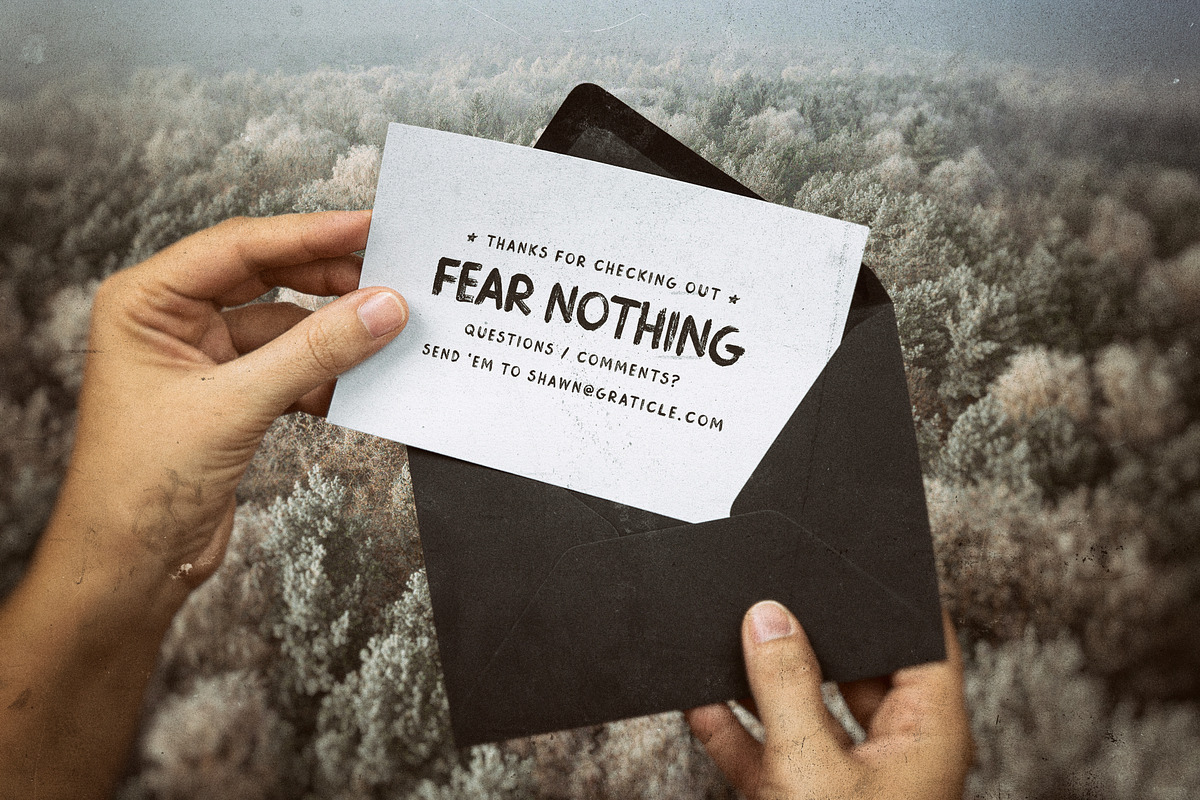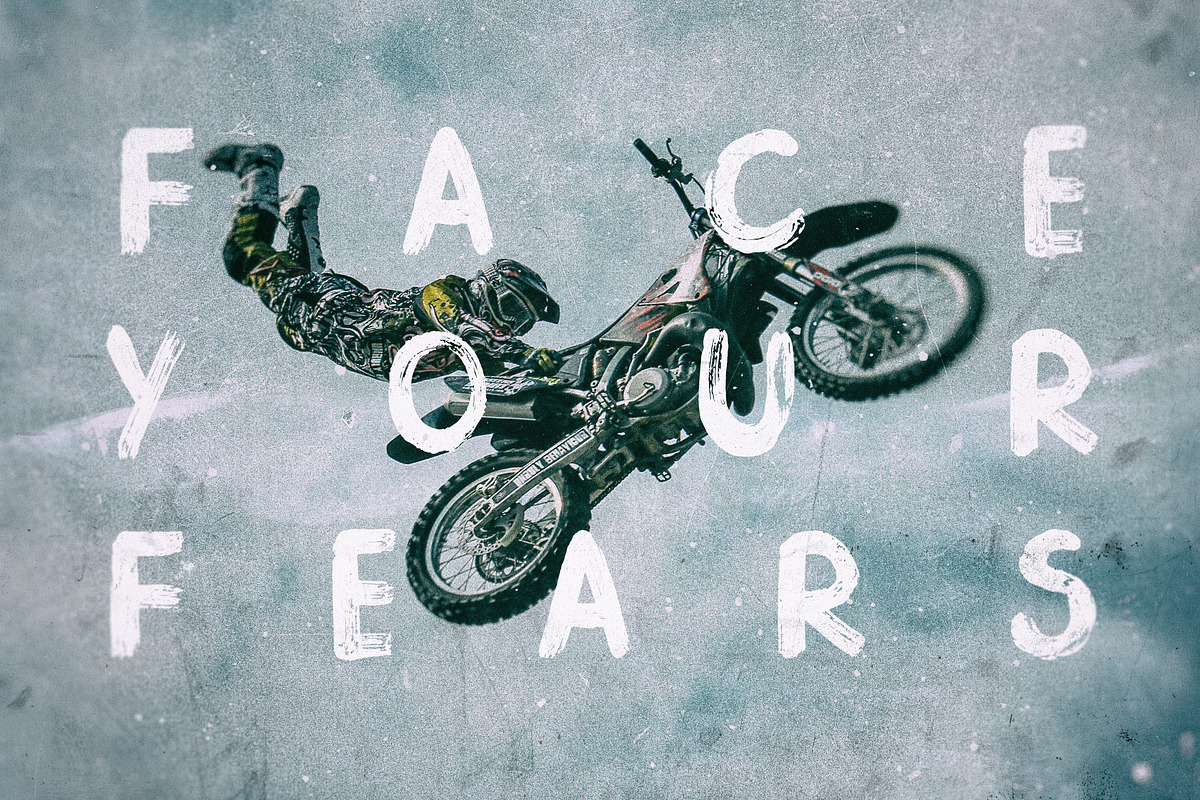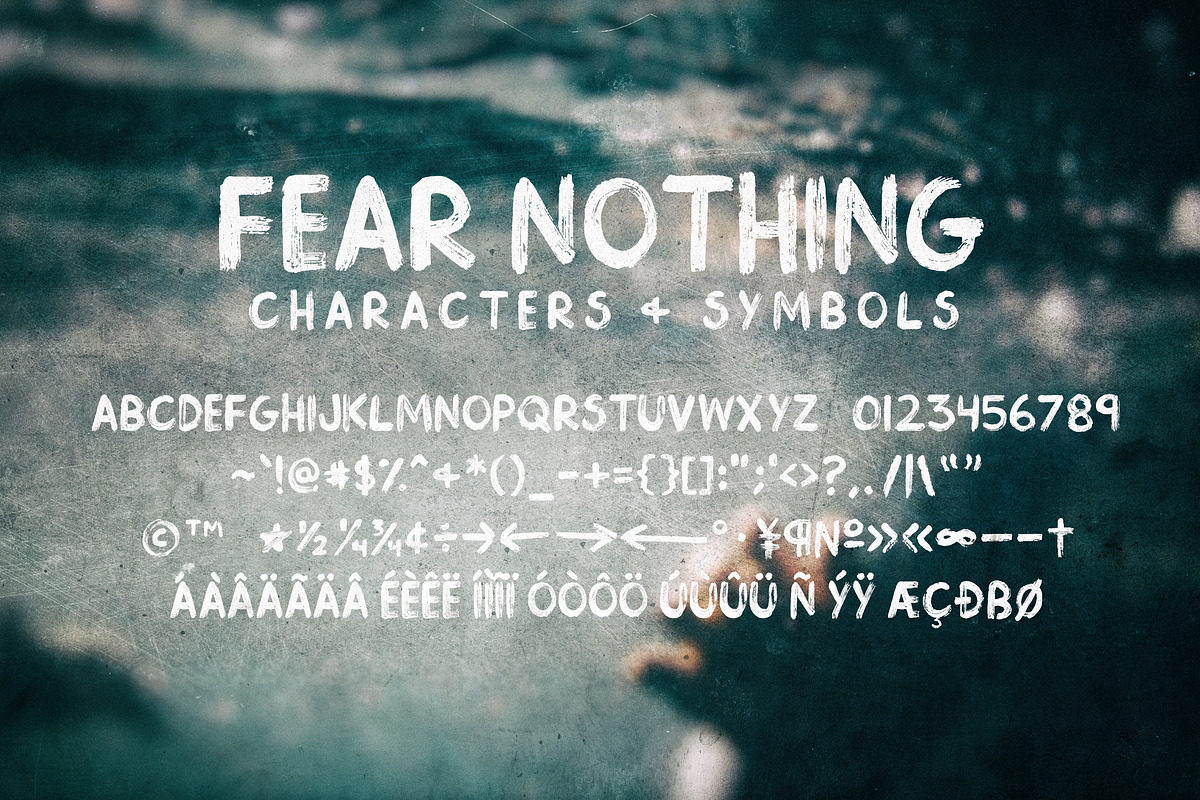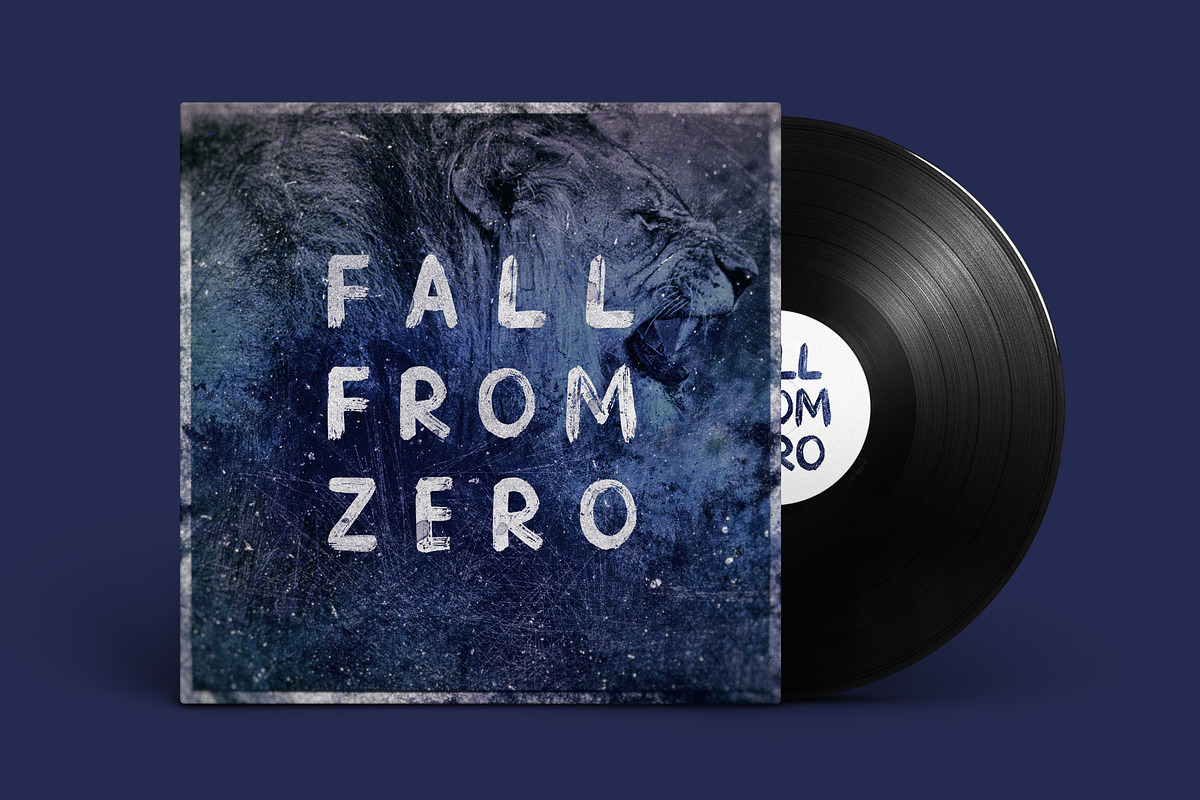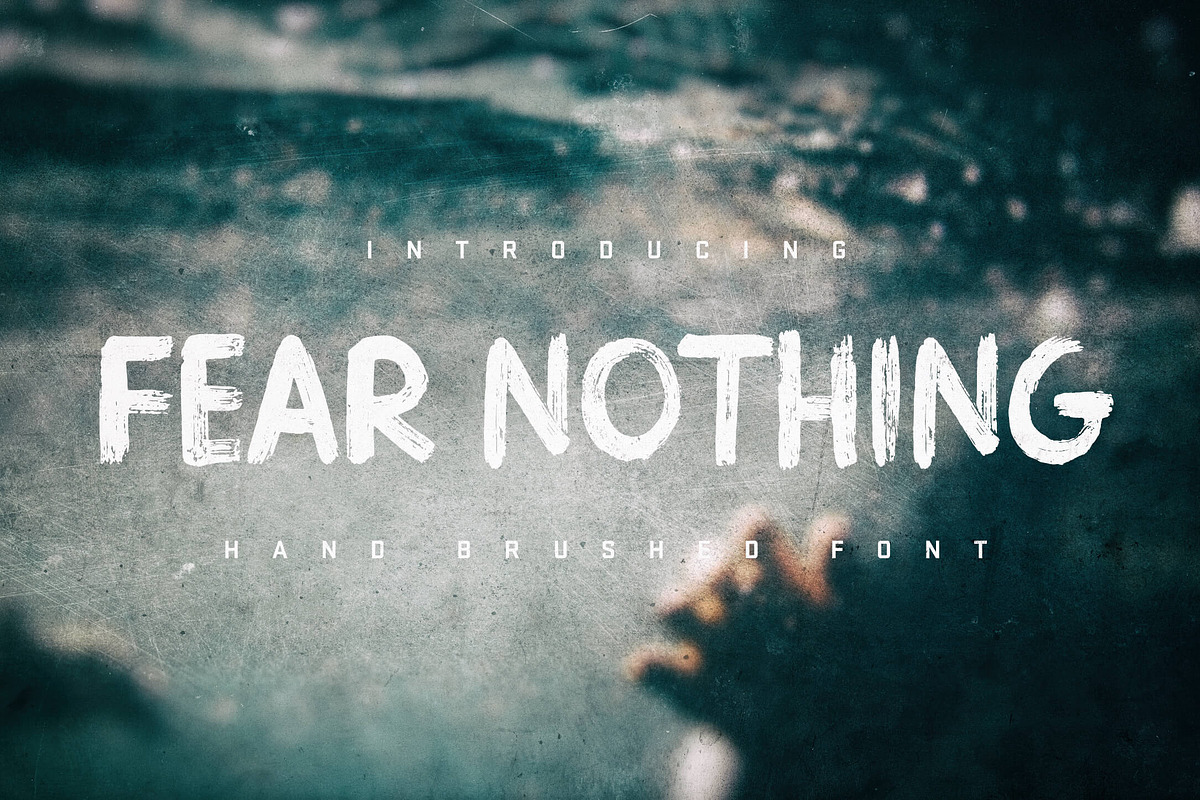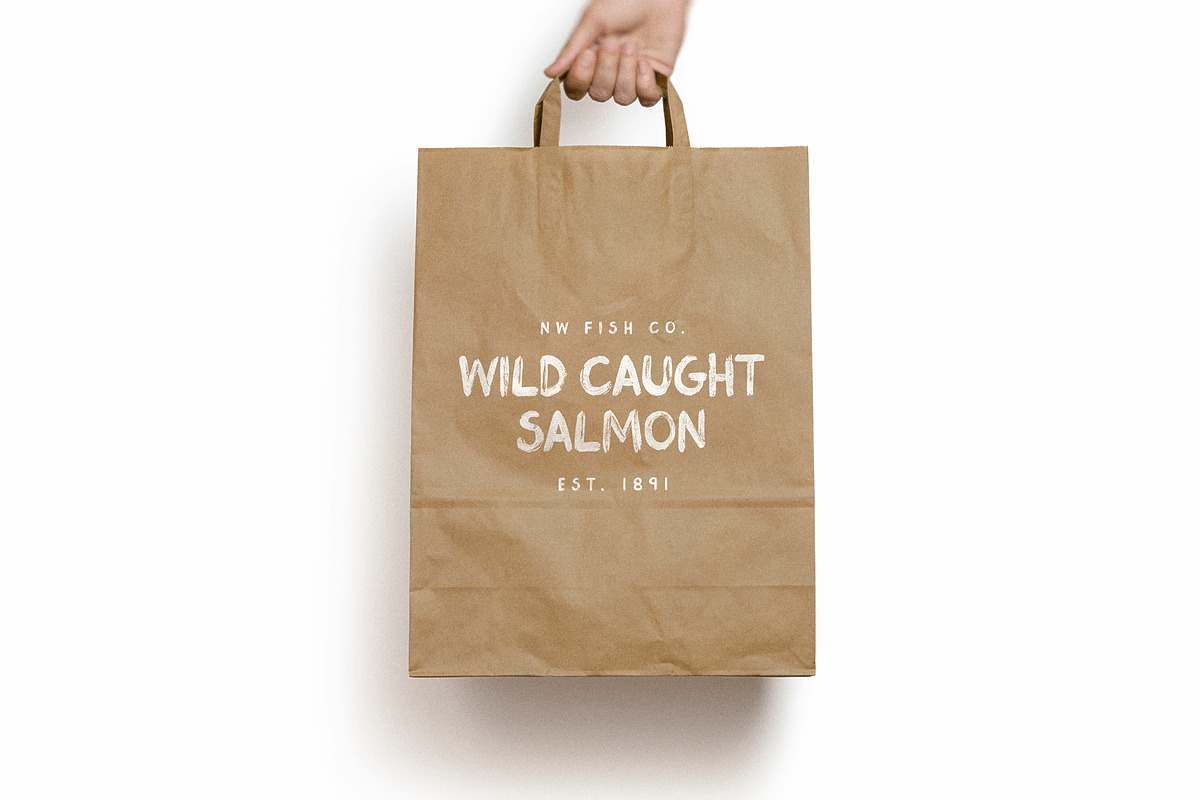
Fear Nothing Brush Font
Fear Nothing Brush Font by Graticle is a font selected for branding, posters, packaging, typography.
- Use Fear Nothing to create creative/unique brand packages, album covers, editorial, advertisements, posters, t-shirt designs, quotes, or hec
- Fear Nothing is packed with uppercase characters, numbers, symbols and all the characters needed for latin-based languages (multilingual?
Why Fear Nothing Brush Font is worth a look
Fear Nothing Brush Font by Graticle fits naturally into Branding, posters, packaging, typography.